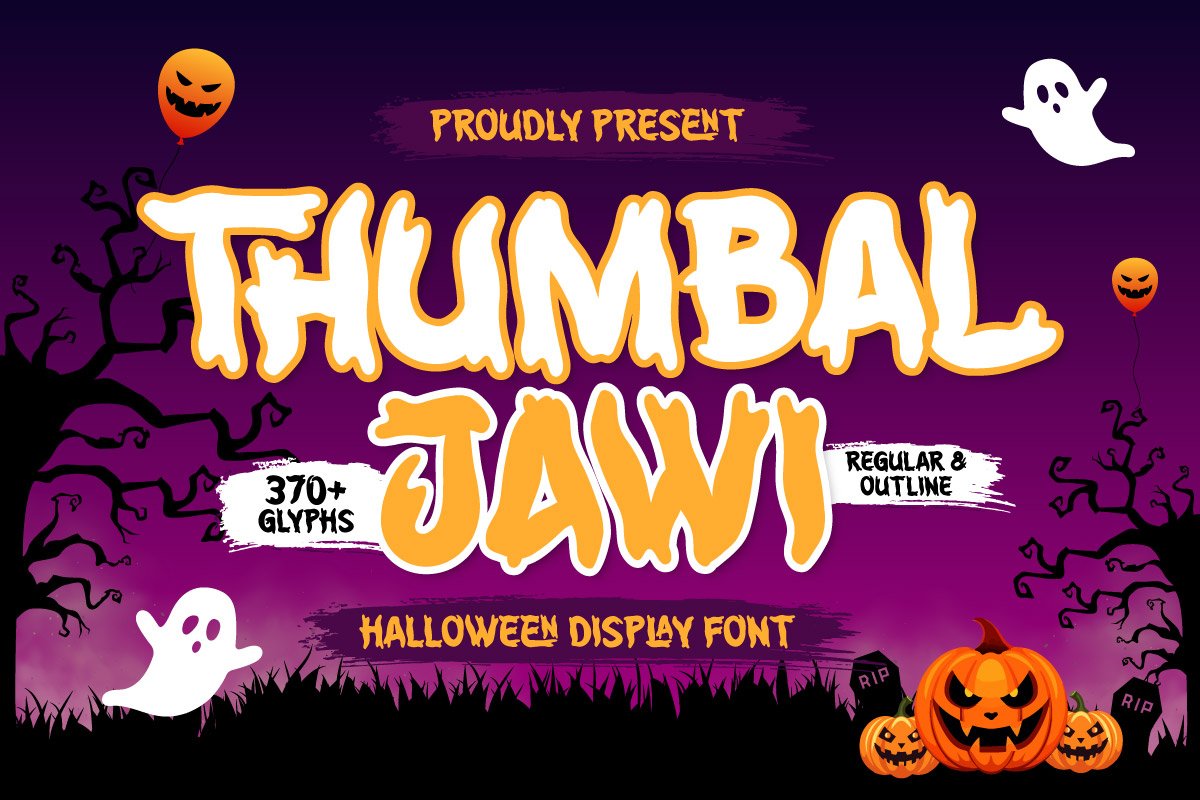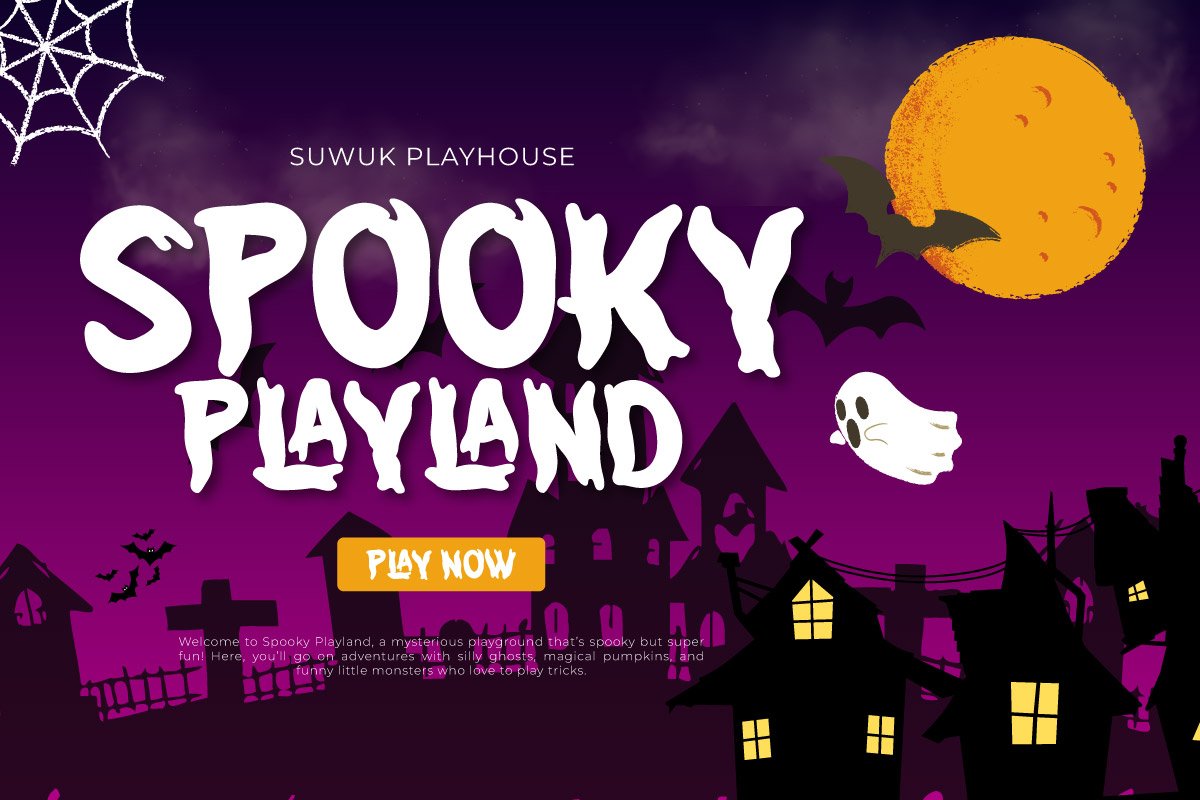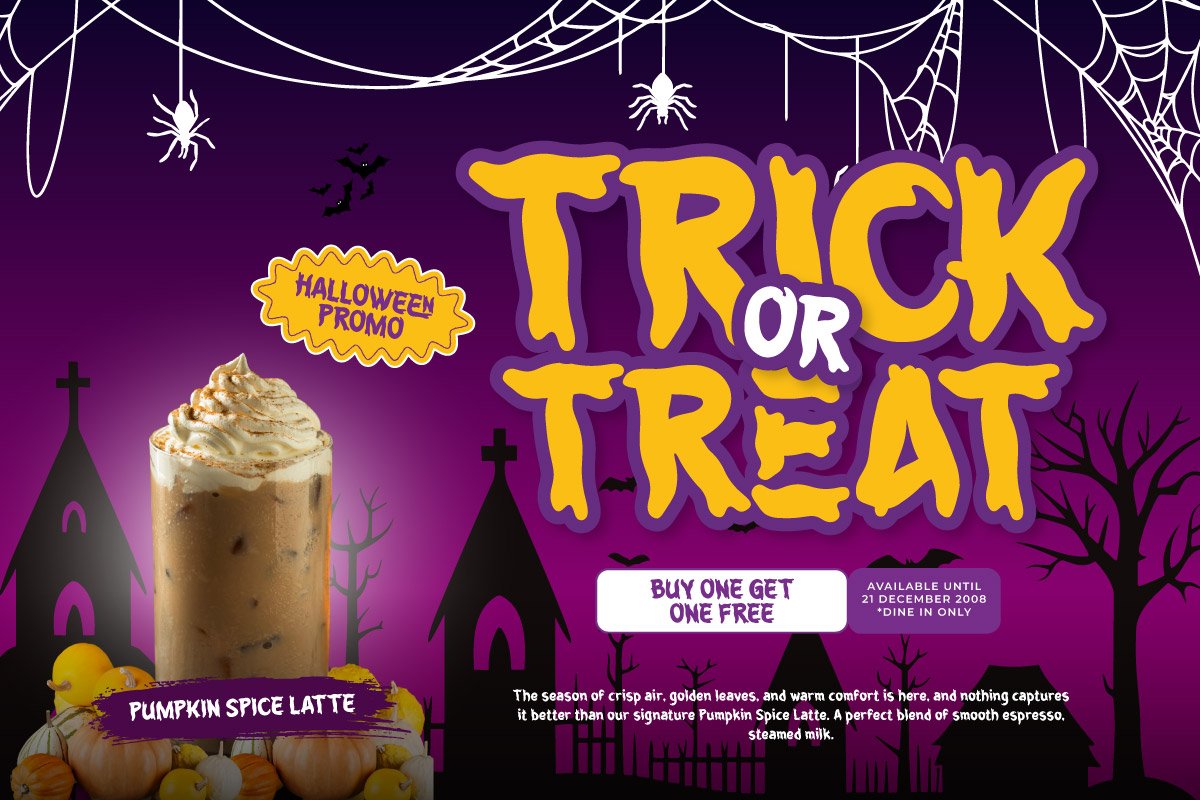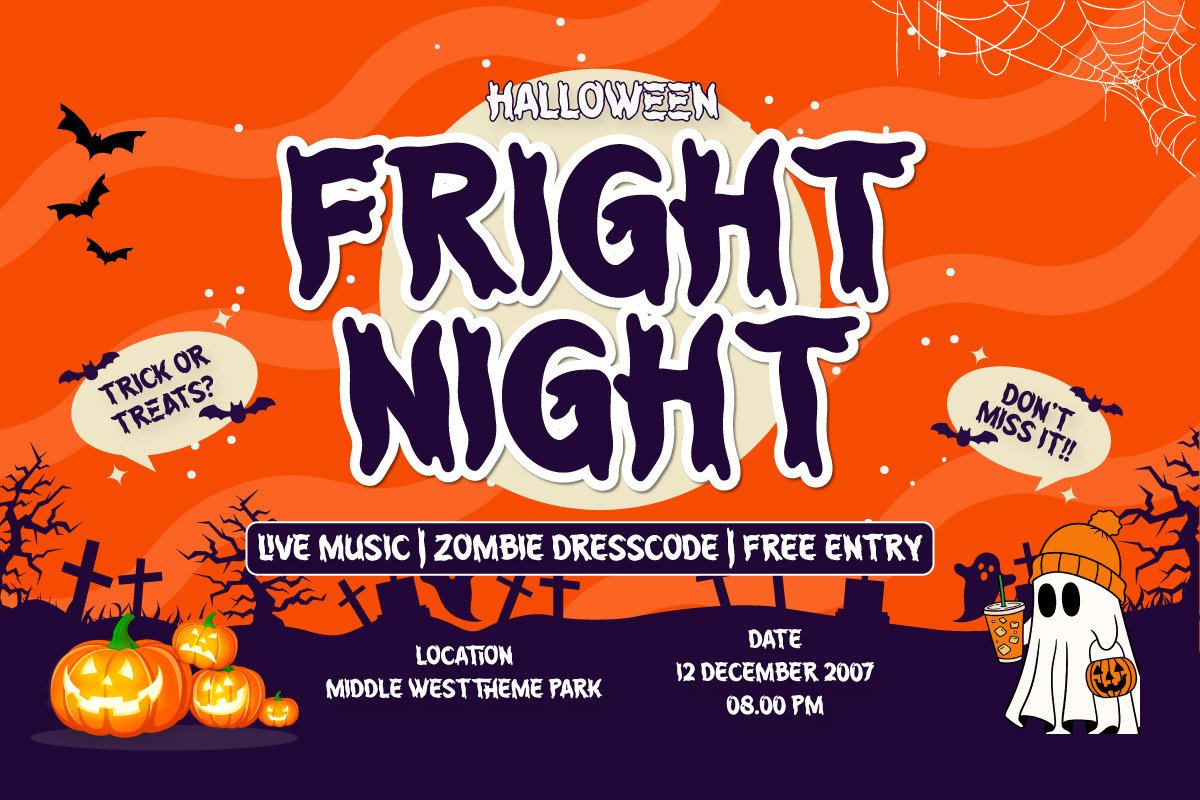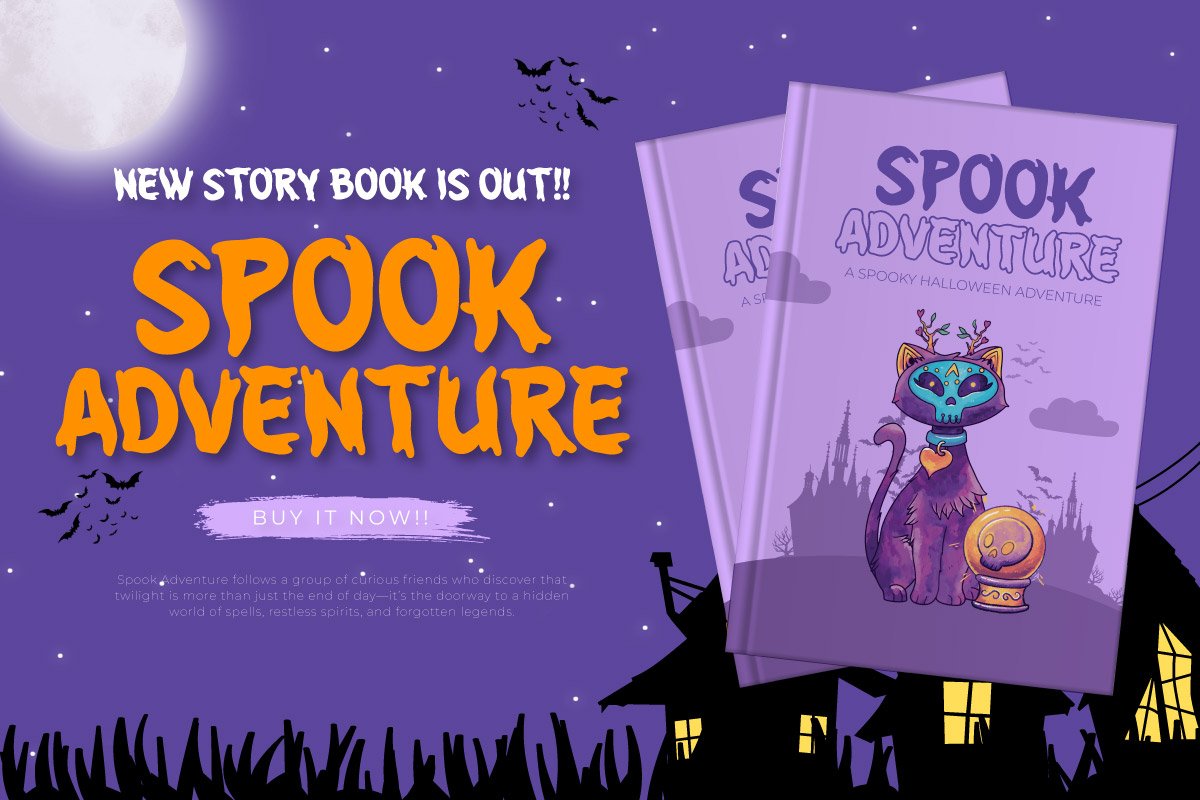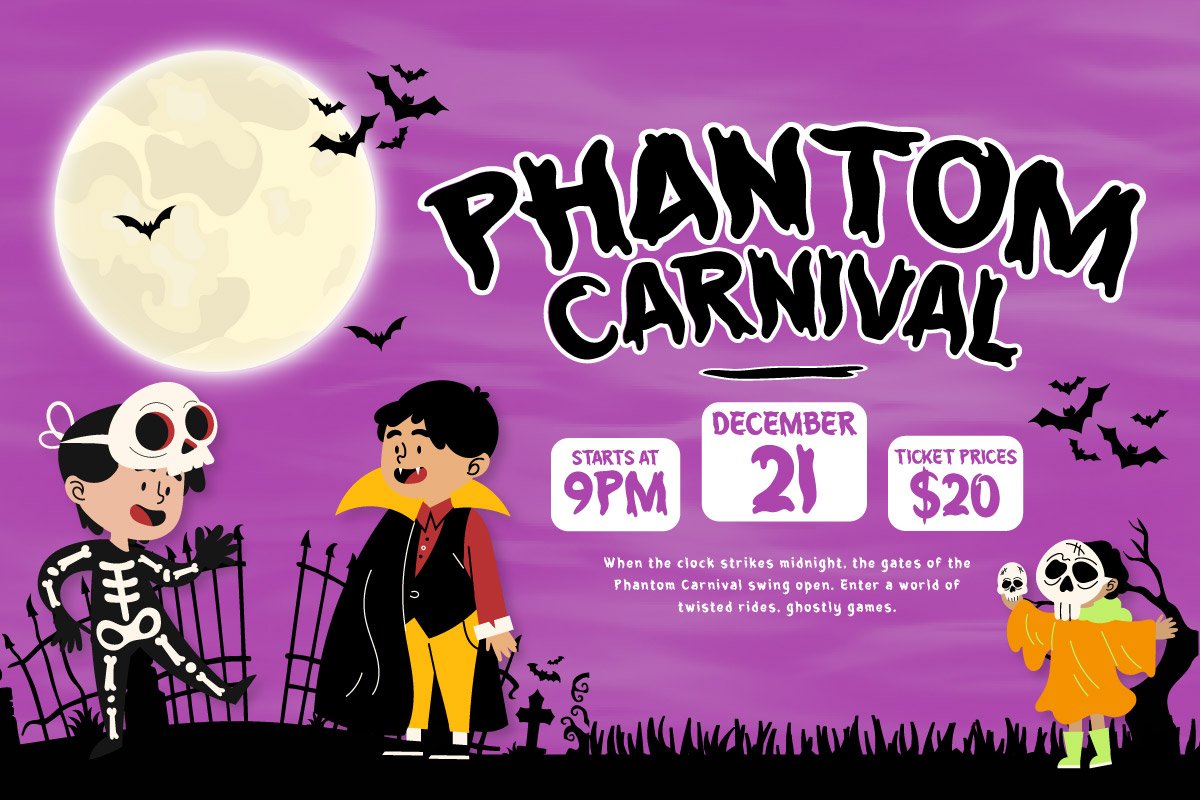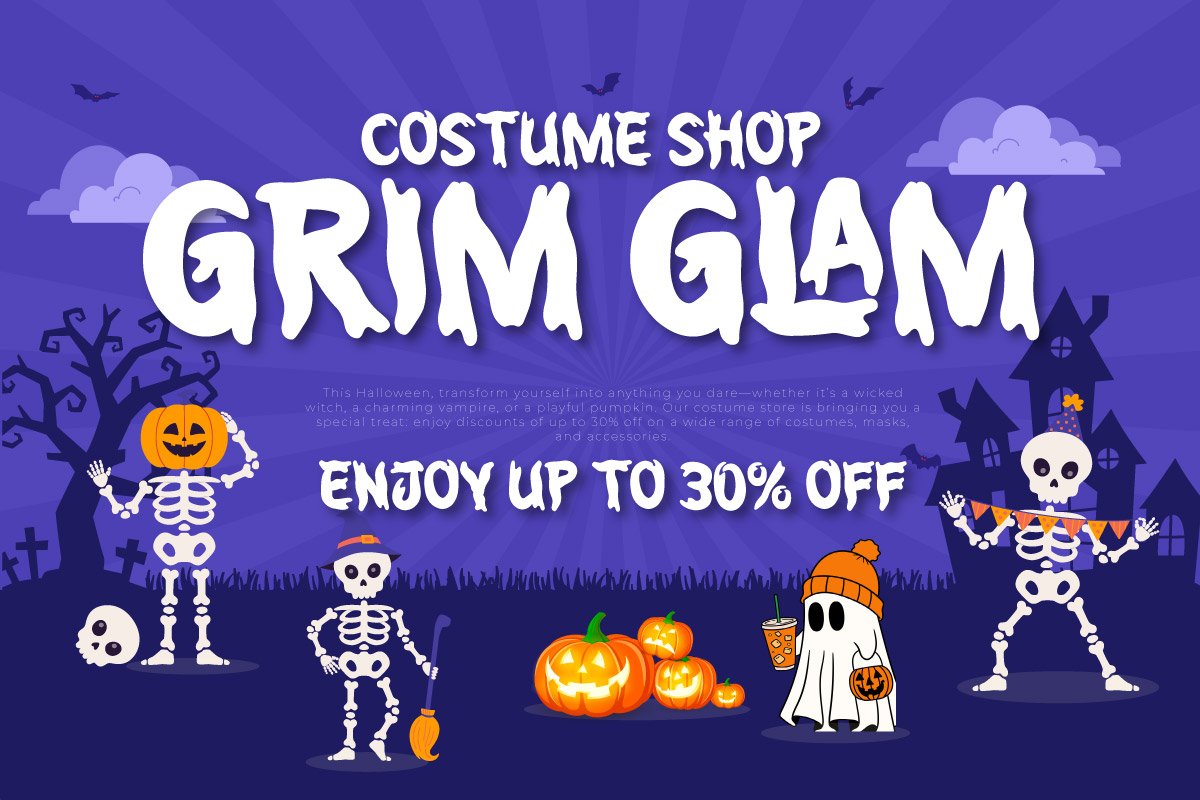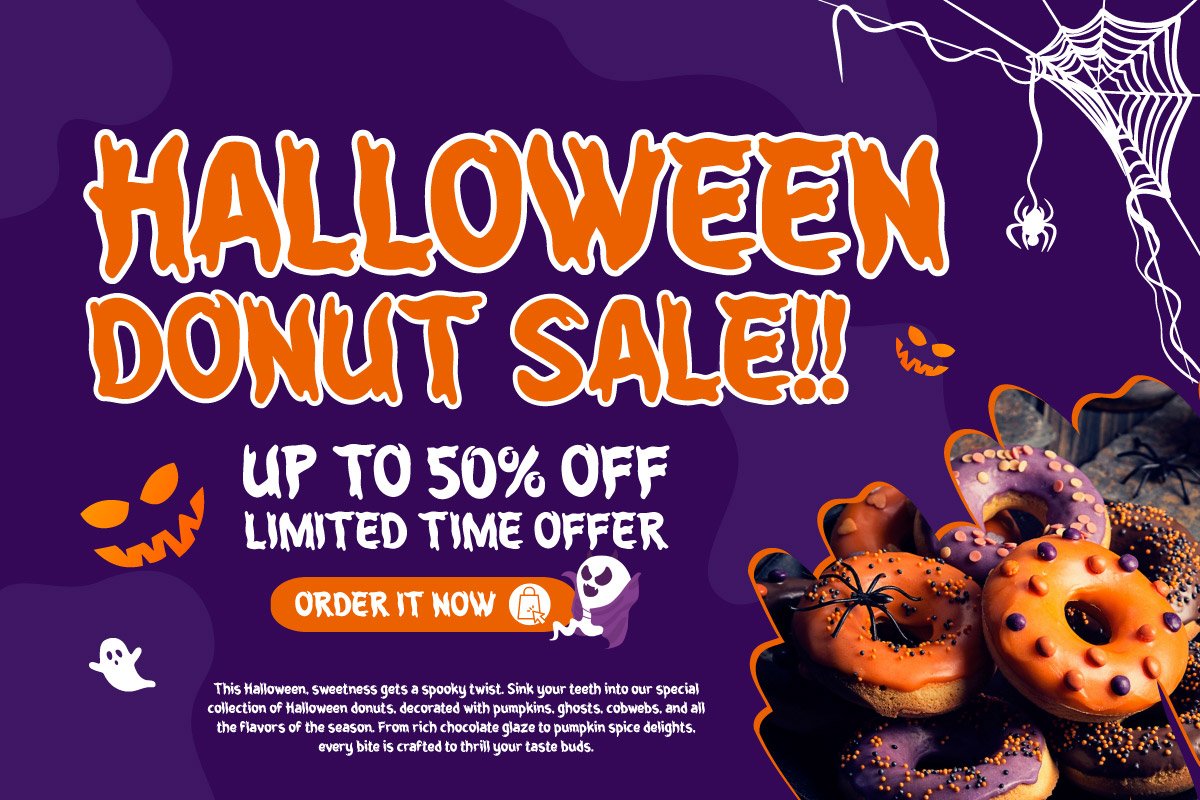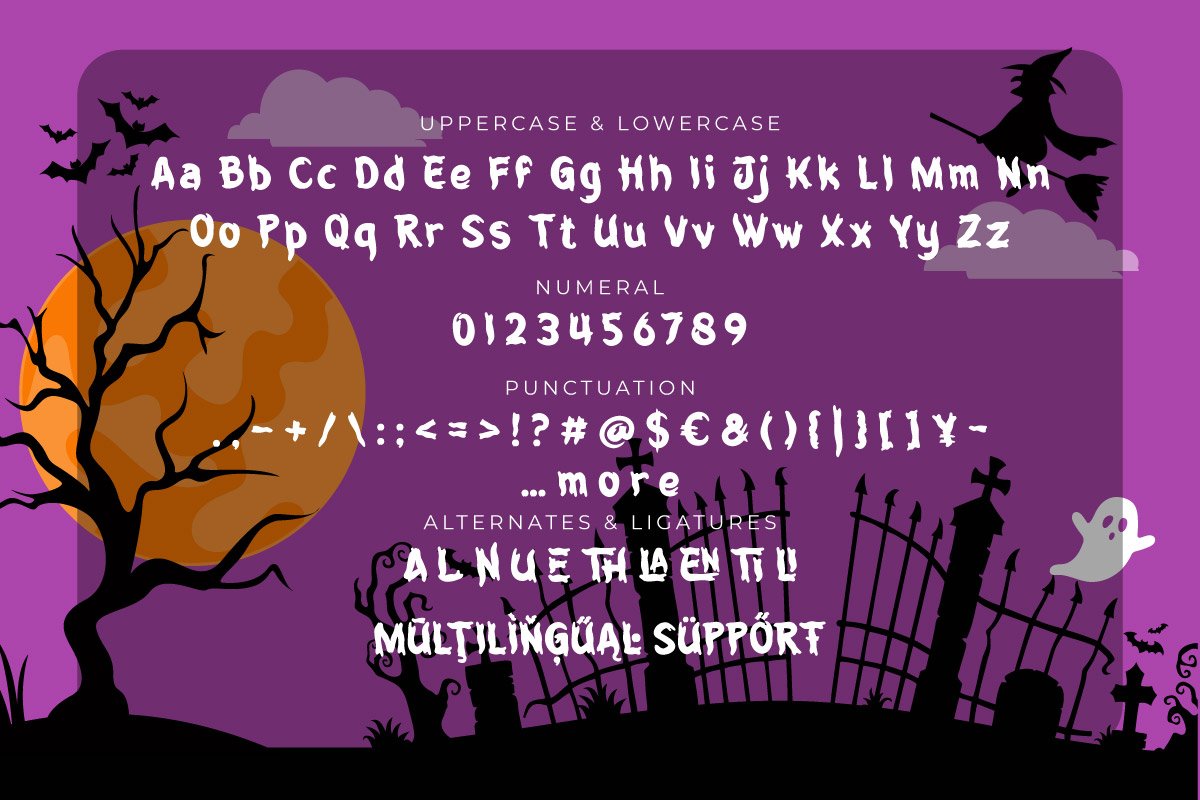
Thumbal Jawi – Halloween Display Font
Thumbal Jawi is a bold and playful Halloween display font perfect for adding a spooky twist to your designs. Its bouncy, hand-drawn letterforms give off a fun yet eerie vibe, making it ideal for Halloween posters, party invitations, trick-or-treat signage, horror-themed YouTube thumbnails, and seasonal product packaging.
This font comes with Regular and Outline styles, allowing you to create eye-catching layered effects and experiment with color combinations. With 370+ glyphs, uppercase, lowercase, numerals, punctuation, and multilingual support, Thumbal Jawi is versatile and ready for both digital and print use.
Bring your Halloween projects to life with a font that’s both scary and playful — Thumbal Jawi will make sure your message stands out from the graveyard crowd!